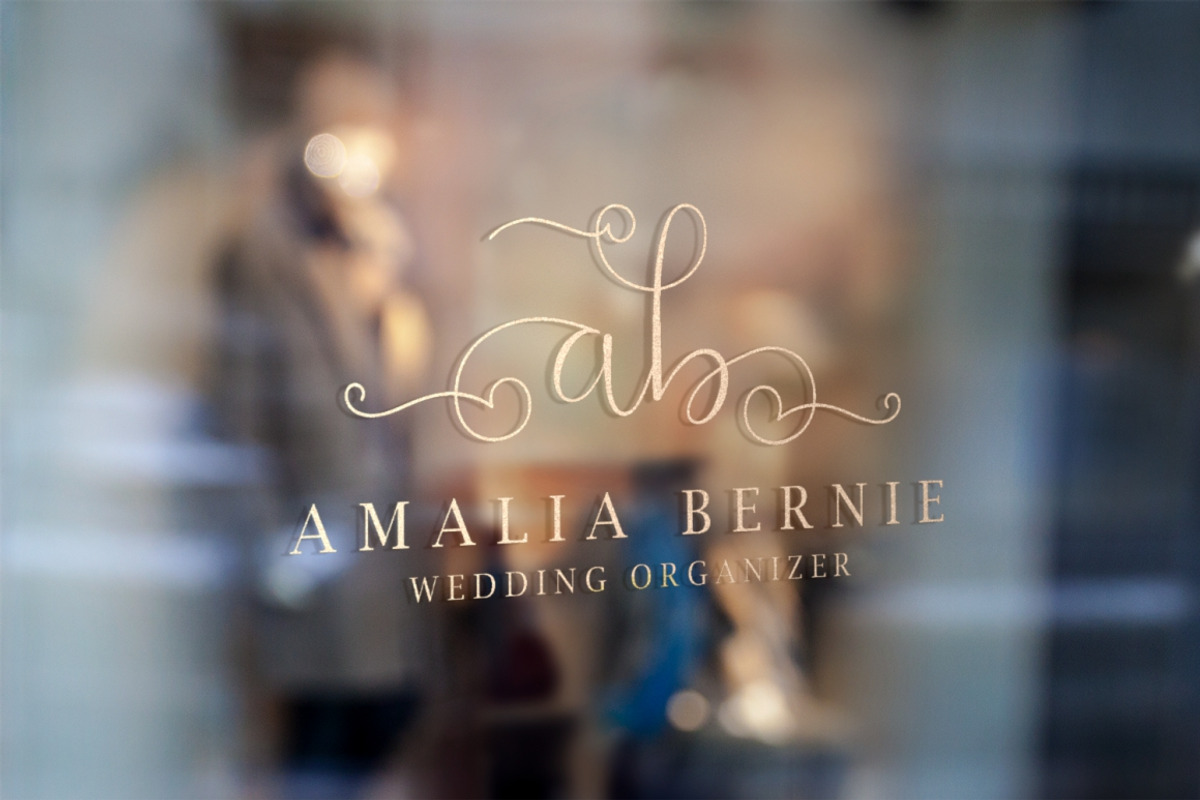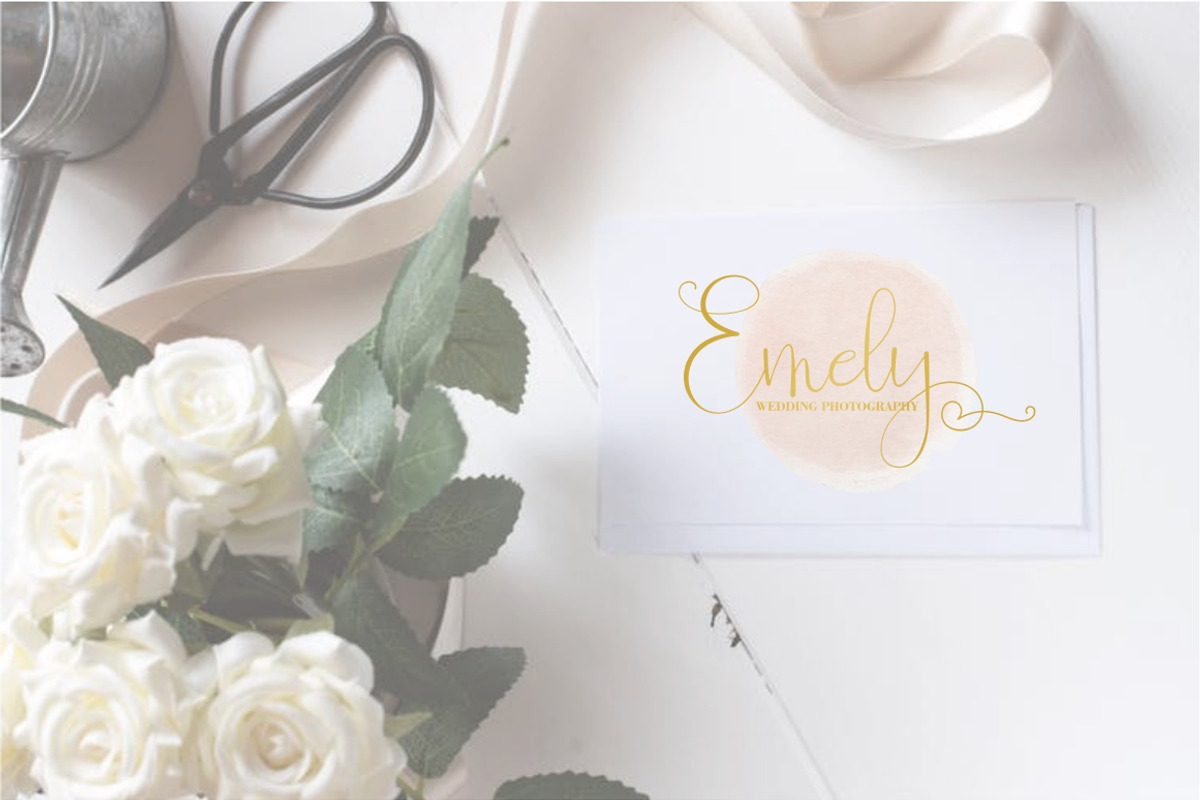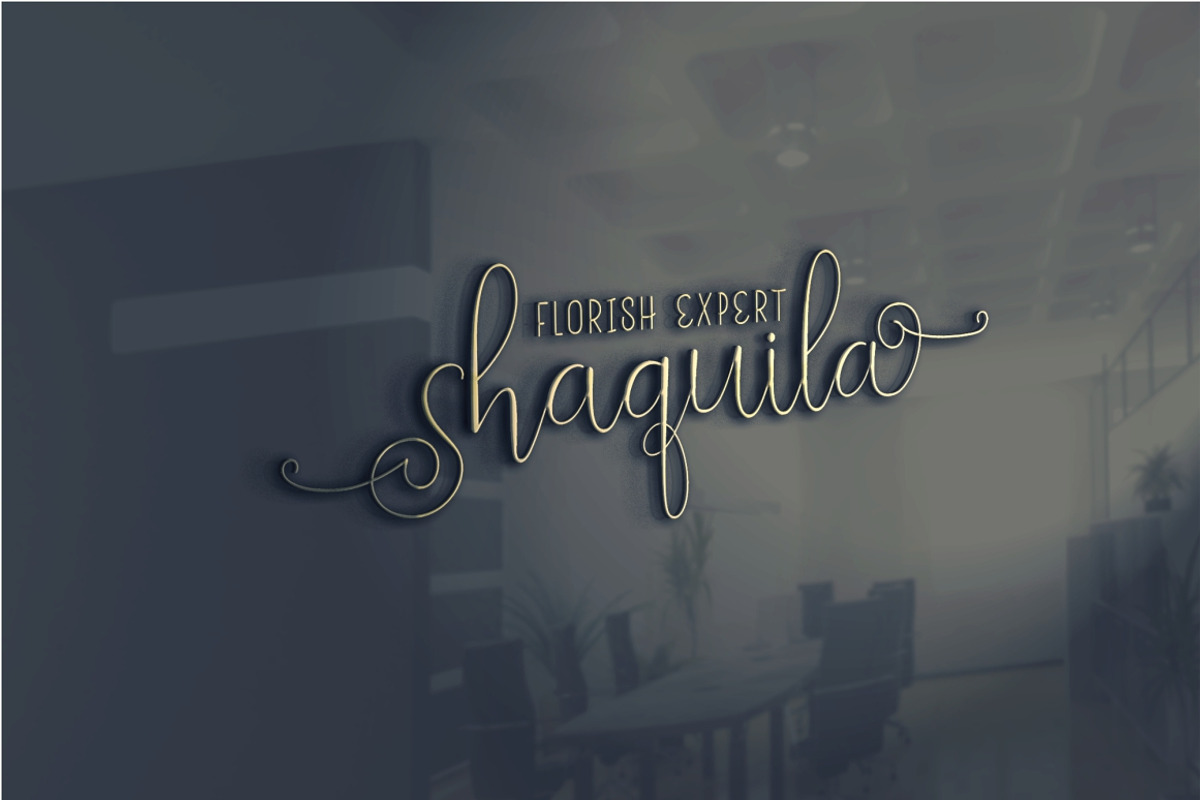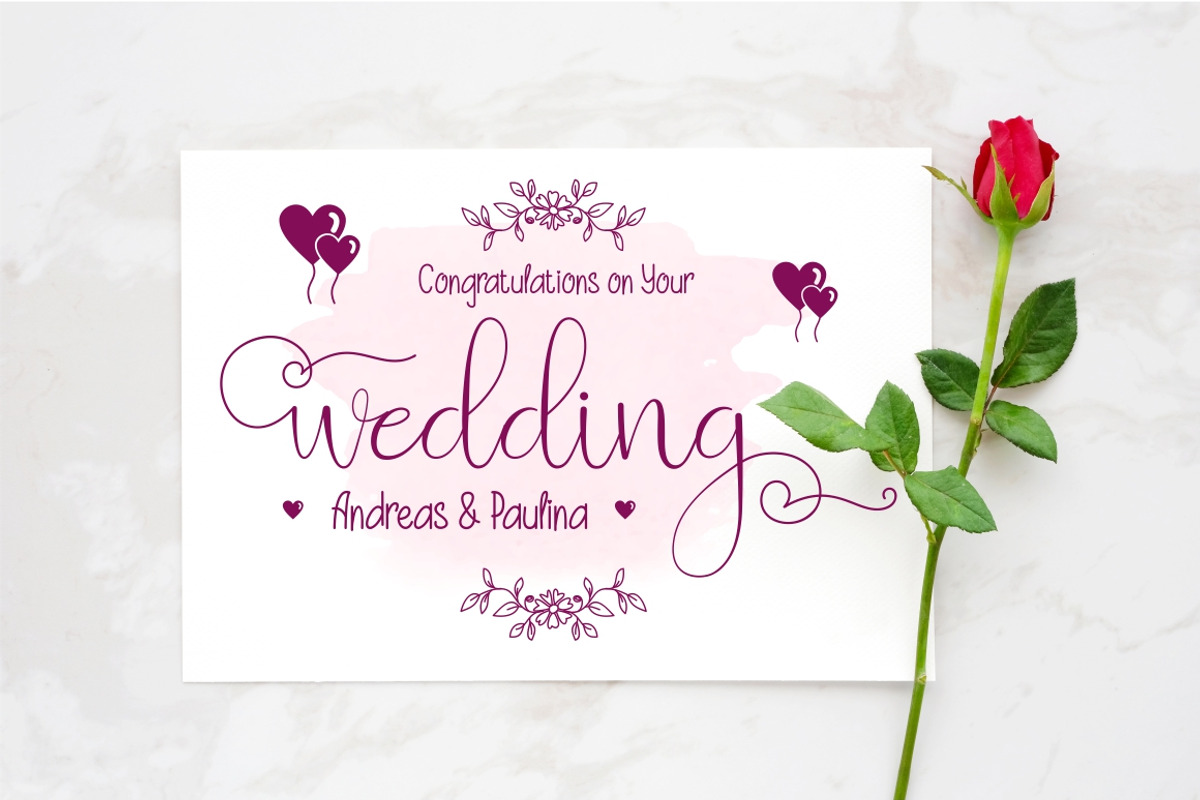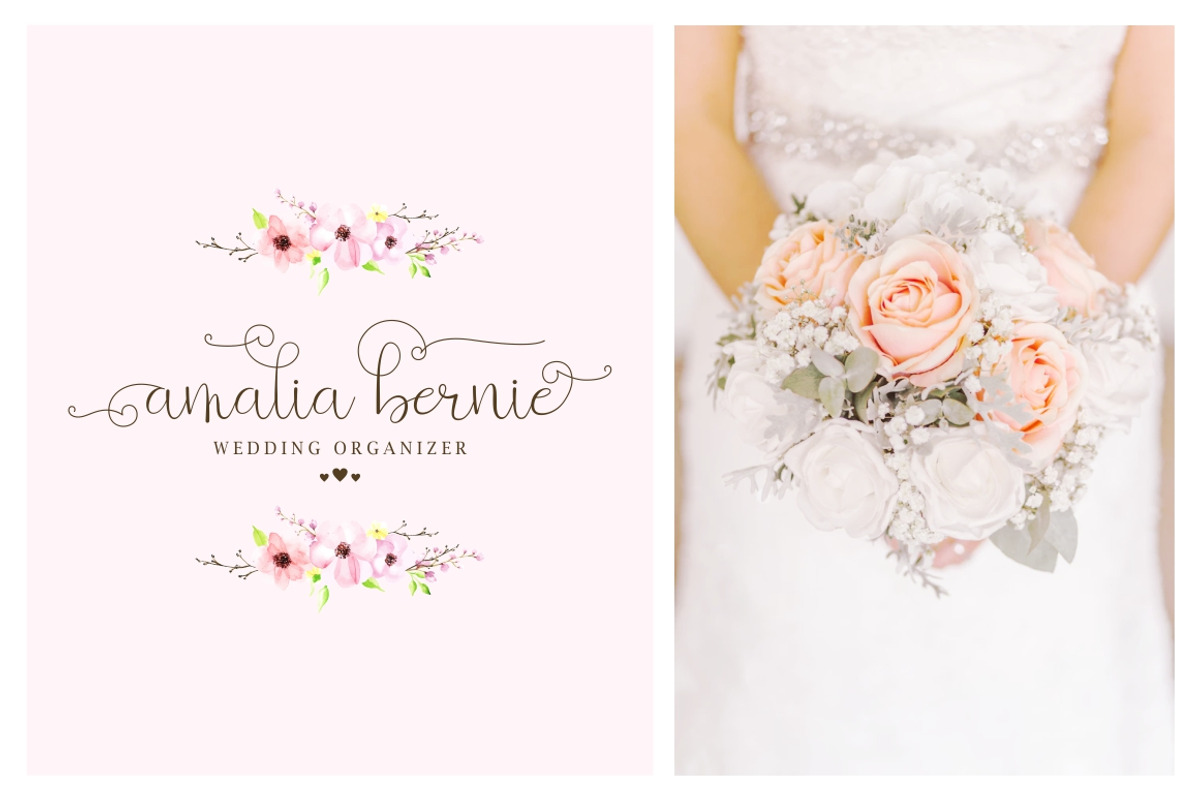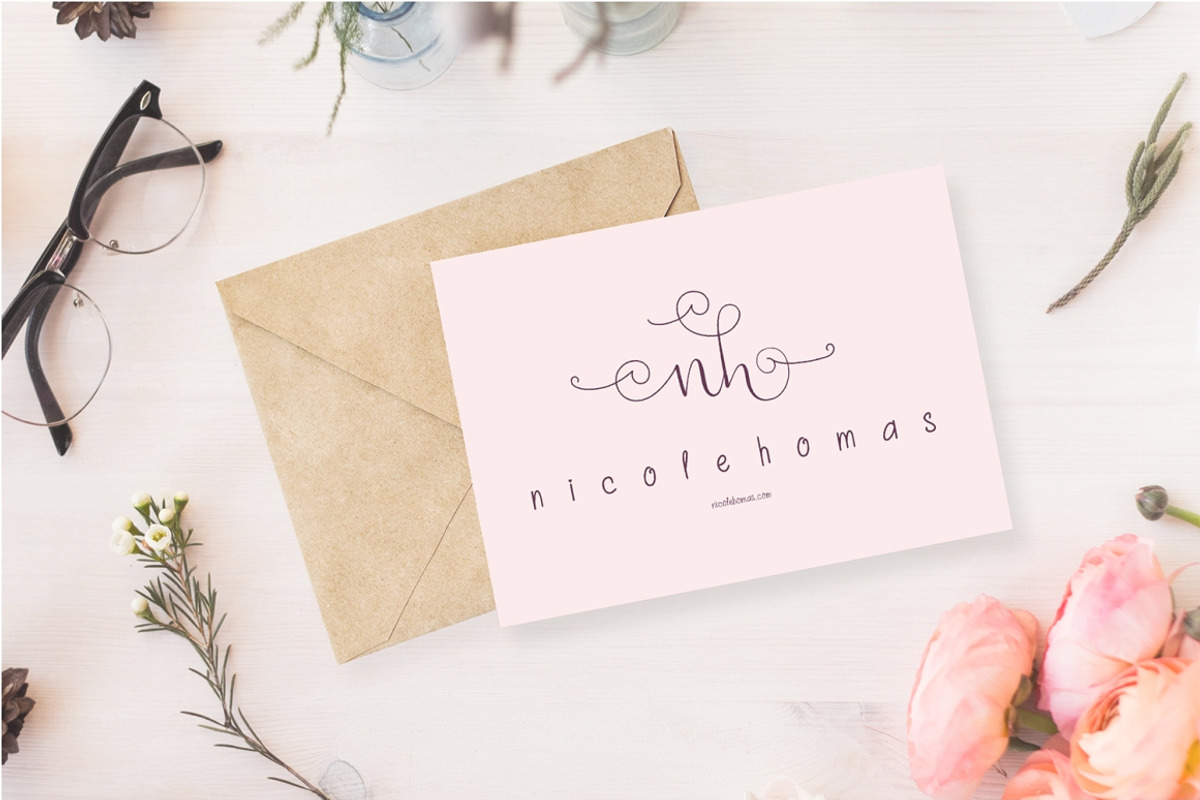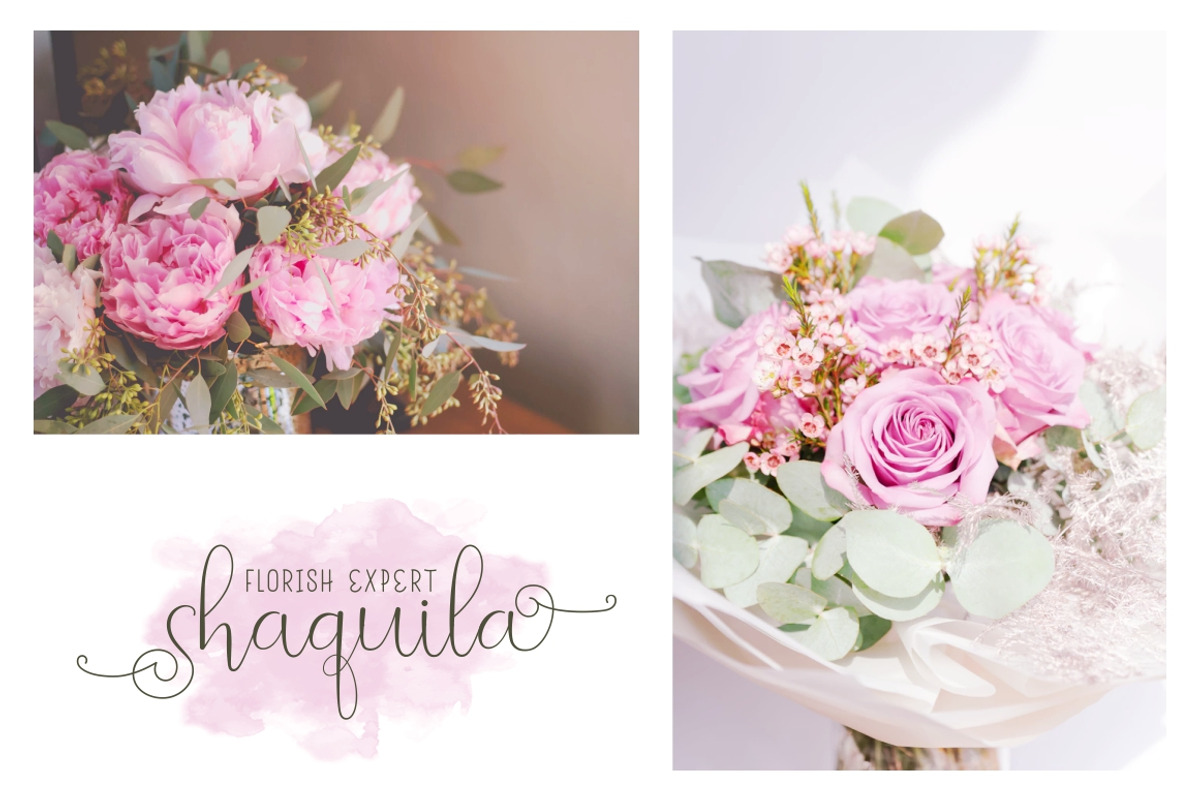
Beauty and Love - Font Duo + Extra
1. Beauty and Love script is a modern script typeface. so girly ,full of love and feminime. include lot of alternate character.
2. Beauty and Love sans is a cute typeface with a playful and fun touch :)
3. Beauty and Love heart dingbat : 52 heart symbol with various style, very suitable to beautify your design.
Each font can work together perfectly to help you create the perfect design for all your projects. It is perfect for branding, letterhead, wedding invitations,quote, print, card and so much more!.